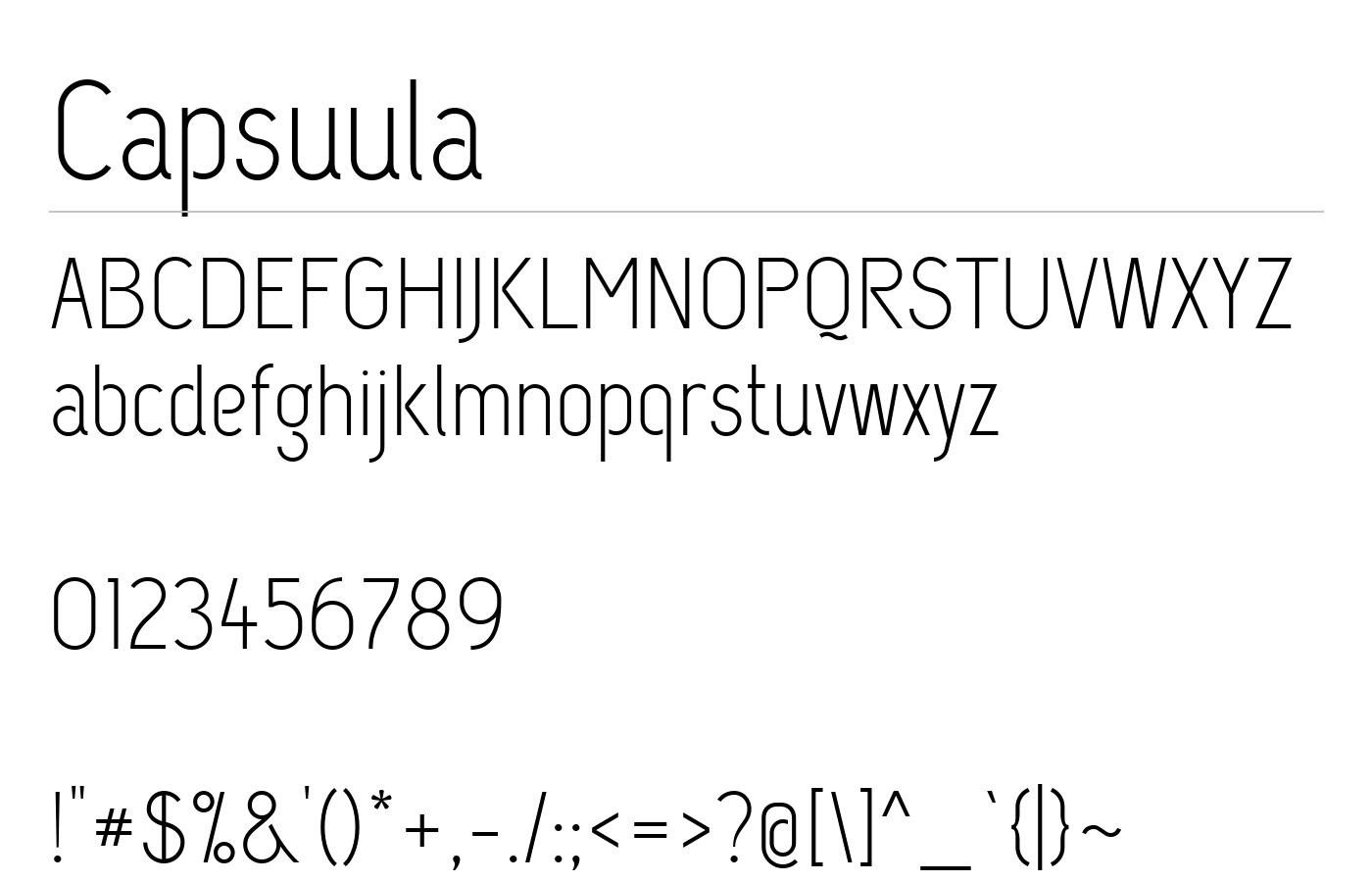
Capsuula is a slender, modern sans serif font with a clean and narrow design that features a tall x-height and low stroke contrast, giving it a sleek and elegant appearance. Its minimalist letterforms with subtle curves and distinctive details, such as the unique tail on the letter Q, make it ideal for contemporary branding, editorial headlines, and stylish digital interfaces where clarity and sophistication are key. This font works well for projects seeking a refined yet approachable modern look.
Capsuula Font
About Capsuula Font
| Designer | Henrich Fichna (haef) |